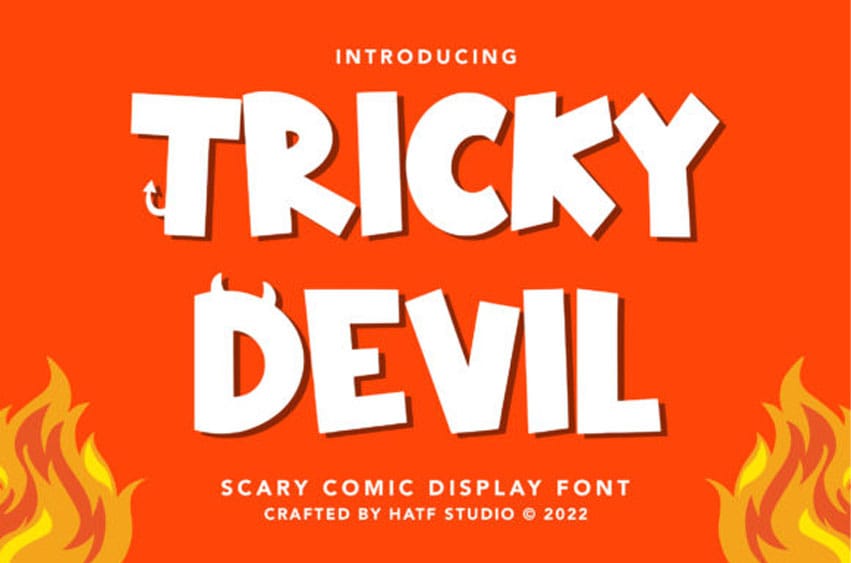
Tricky Devil Font Scary Comic Display Font is a font with distinctive handwritten characters perfect for branding projects, logos, wedding designs, media posts, advertisements, product packaging, product designs, labels, photography, watermarks, and invitations, stationery, and any project who needs a handwritten touch.